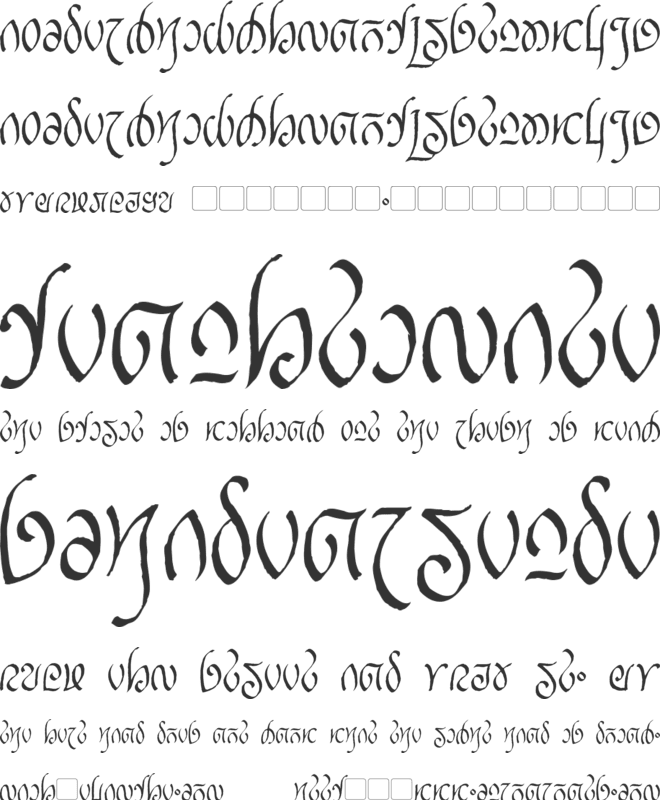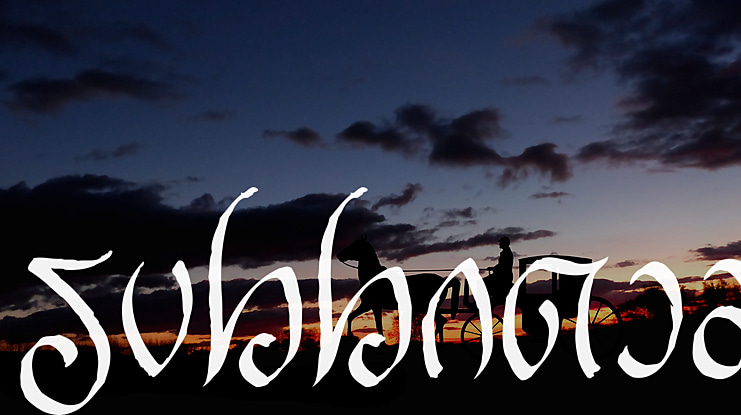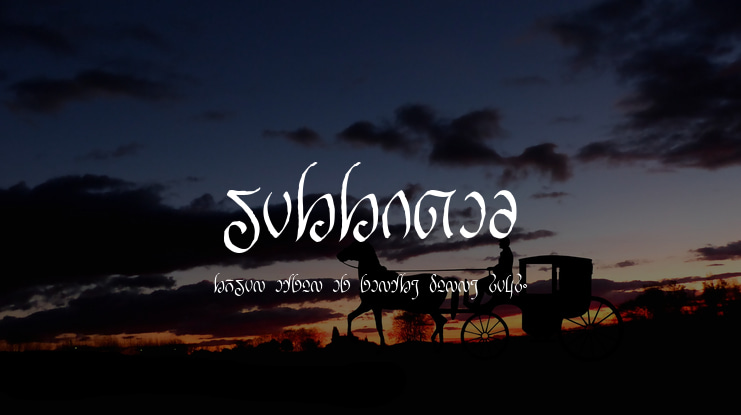
Rellanic Font Family
Neale Davidson
Rellanic is a flourished runic script based on the language described in Wizards of the Coast’s Dungeons and Dragons Fourth-Edition product line. This script is the official ‘default’ Elven and Fae script used in the game’s campaigns. Includes canon characters. Includes bold, italic, and bold-italic weights.